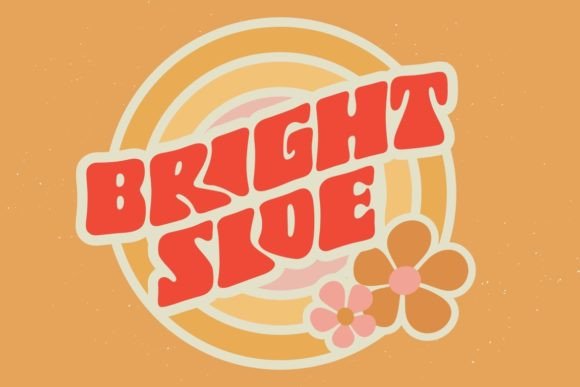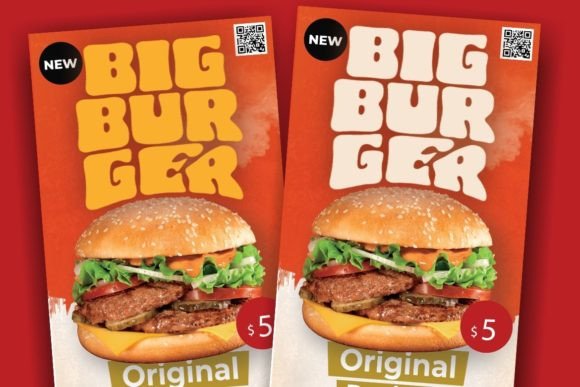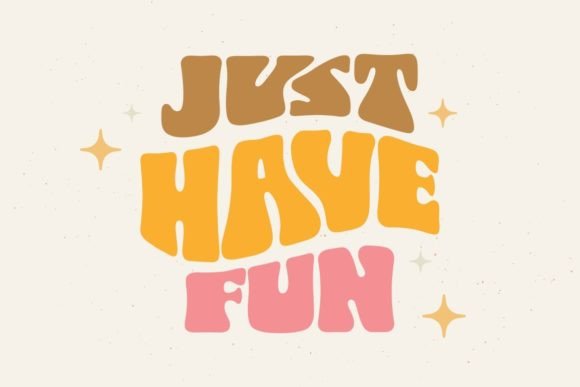
Fat Kat Font: Groovy Retro Display Font for Headlines & Posters
About the Fat Kat Font
Experience the unique personality of Fat Kat Font, a font designed for impact. Fat Kat is a bold retro display font with a fun, modern twist. Let yourself be amazed by its cool and funky vibe and use it in your most creative projects.
Fat Kat’s bold, playful personality makes it ideal for headlines, posters, and branding projects requiring a retro yet modern feel. It works exceptionally well for eye-catching logos, short impactful phrases, and packaging designs where a strong visual statement is needed. However, its condensed letterforms and bold weight are unsuitable for body text or long paragraphs, and its unique character might clash with UI elements requiring high legibility.
Pairing Fat Kat effectively requires considering its retro-modern aesthetic. A clean, geometric sans-serif like Futura or a neutral typeface such as Gill Sans would provide a sophisticated contrast, balancing its playful energy. For a more vintage feel, a classic serif like Garamond could also work surprisingly well, adding a touch of refined elegance.
Overall, Fat Kat projects a fun, energetic, and slightly rebellious mood, best suited for brands targeting a young, creative audience, or projects with a retro-inspired theme.
Fat Kat Font Usage Examples
Fat Kat Font Example